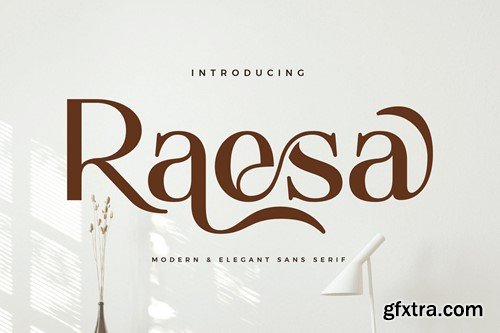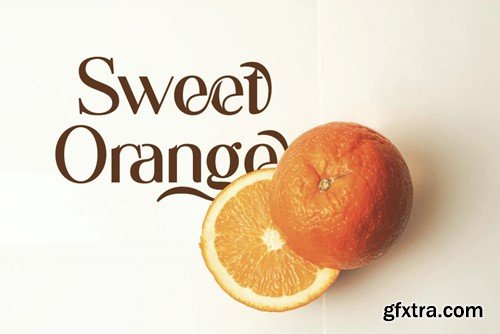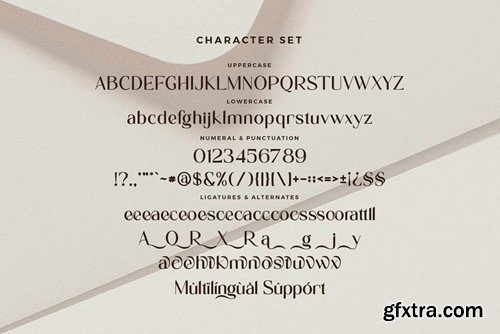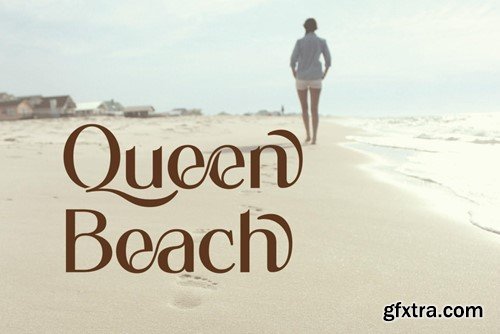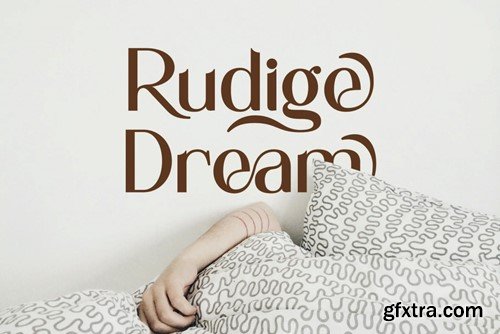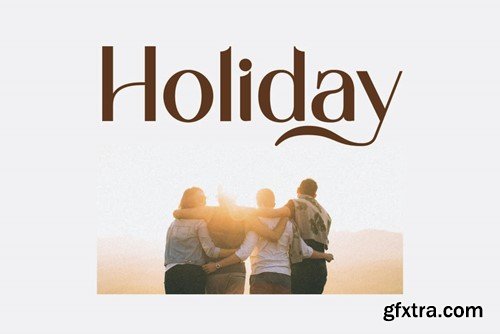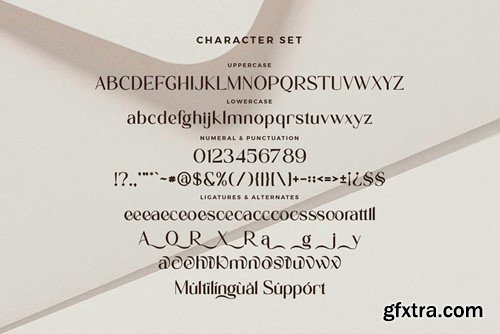
Raesa - 现代 ligature 字体 C6VPGP8
Raesa - Modern Ligature Font C6VPGP8
Raesa - Modern Ligature Font
Raesa Sans Font Typeface inspired by the famous minimalist logo perfect for the purposes of designing templates, brochures, videos, advertising branding, logos, invitation, layout design, elegant crafting, beauty design and other.
• Ligatures
• International Accent